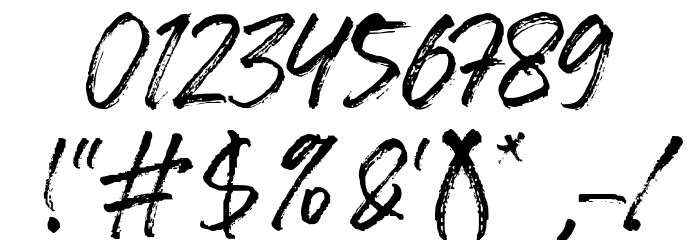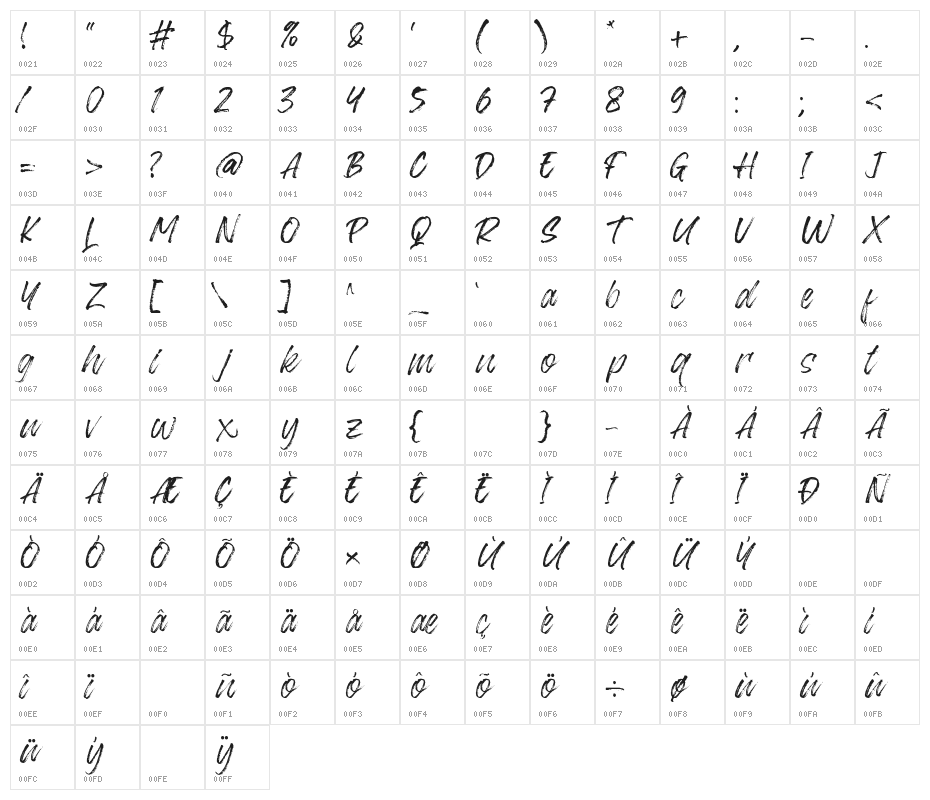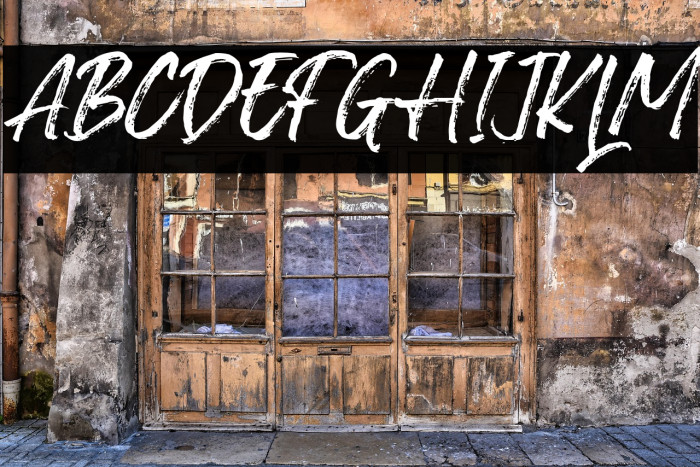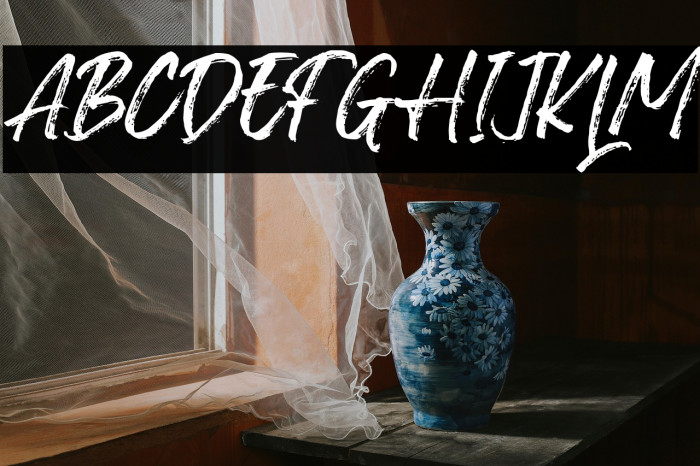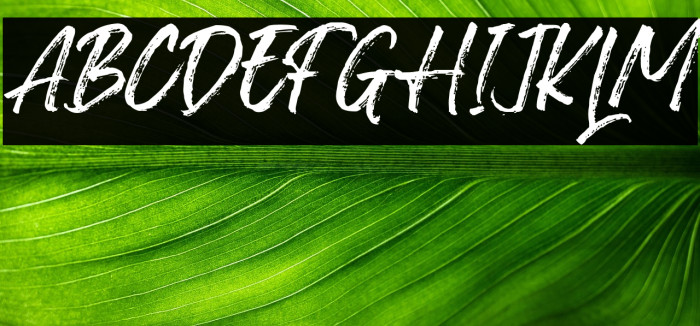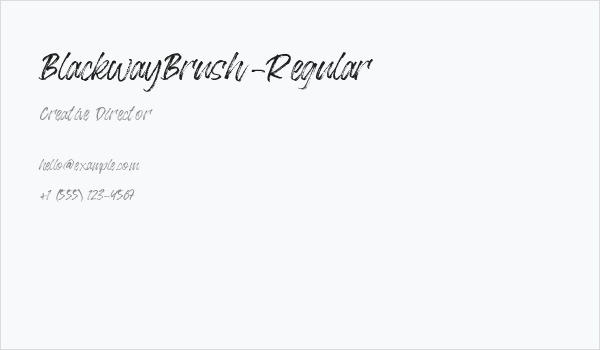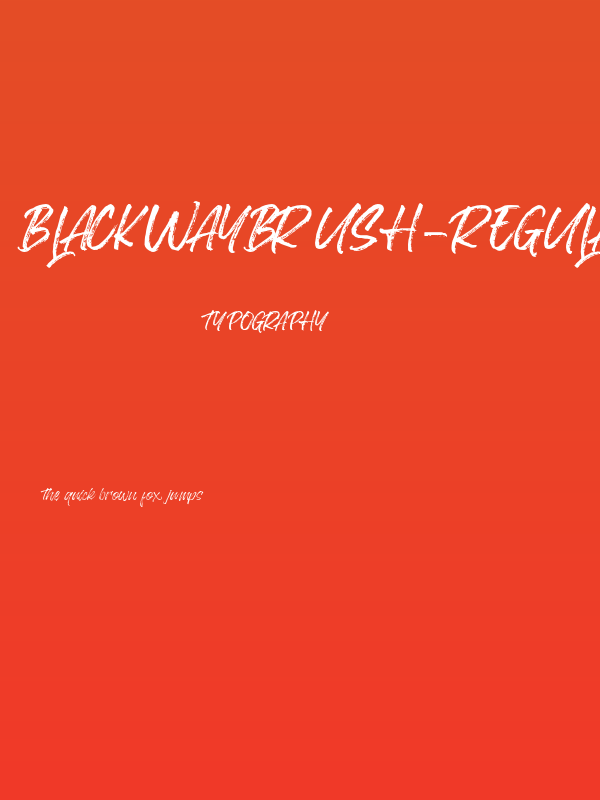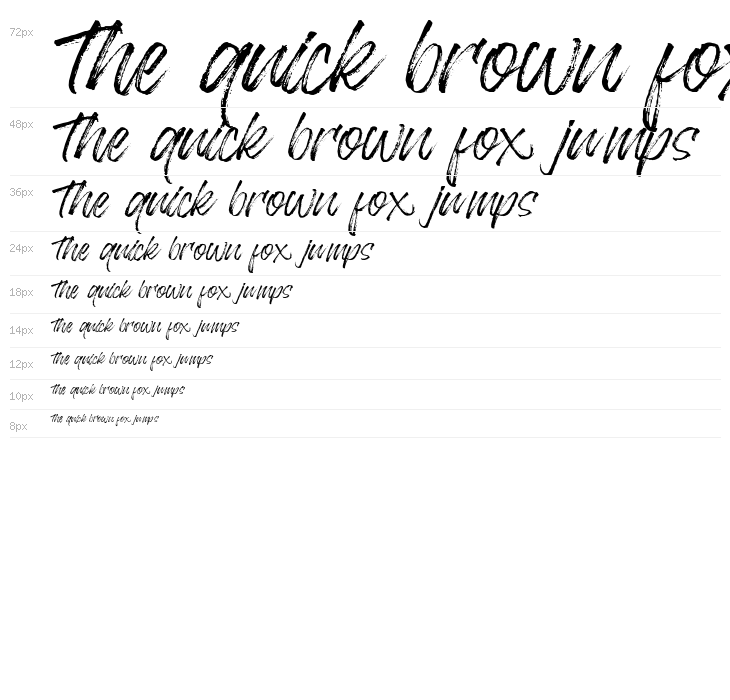
BlackwayBrush-Regular Font
BlackwayBrush-Regular Description
This font exudes a dynamic and energetic feel, characterized by its brush-like strokes and expressive, hand-drawn appearance. The letters are bold and slightly slanted, giving a sense of movement and spontaneity. The texture of the strokes varies, adding a raw and artistic touch to the overall design. This font is perfect for projects that require a personal and creative flair, such as artistic posters, branding for creative industries, or any design that aims to capture attention with its bold and lively style.
| Use Case | Logos, Headlines |
| Proposed Projects | Ideal for artistic posters, creative branding, and attention-grabbing designs. |